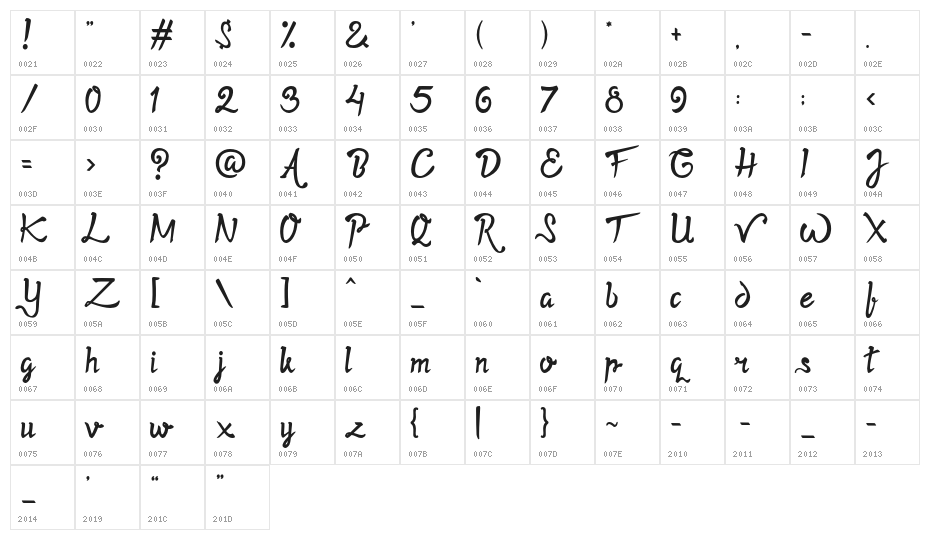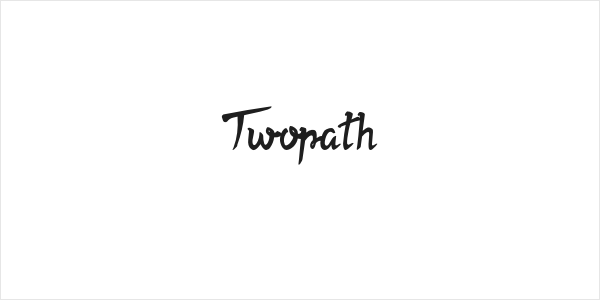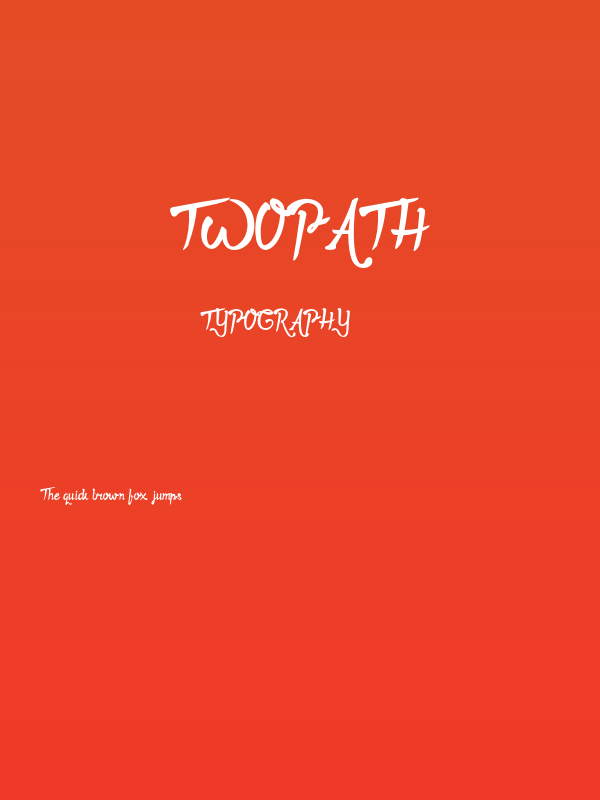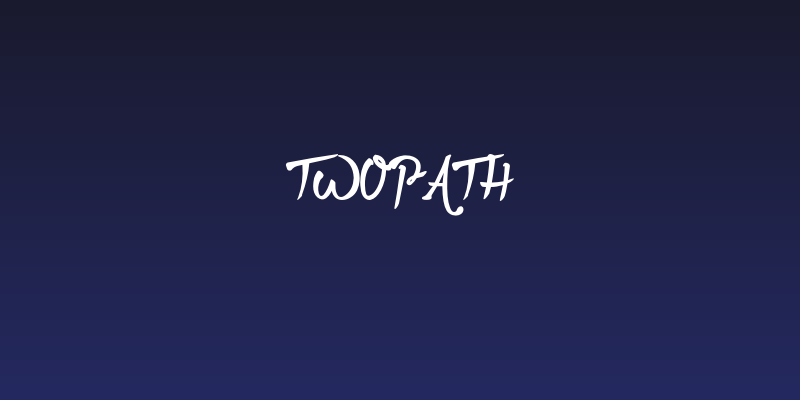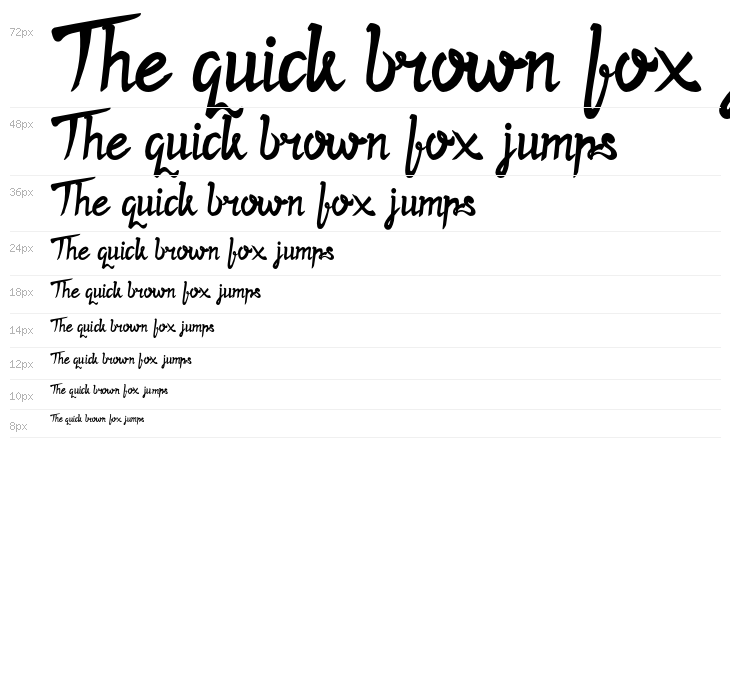
Twopath Font
Twopath Description
This font features a dynamic and fluid script style, characterized by its elegant and flowing letterforms. The uppercase letters exhibit a graceful and slightly slanted appearance, while the lowercase letters maintain a consistent and harmonious flow. The numerals are bold and maintain the same fluidity, ensuring readability. Special characters are crafted with the same attention to detail, enhancing the font's overall aesthetic. The strokes are moderately thick, providing a balanced contrast that enhances legibility without compromising the decorative nature of the font.
| Proposed Projects | Ideal for wedding invitations, greeting cards, elegant branding, and decorative headings. |